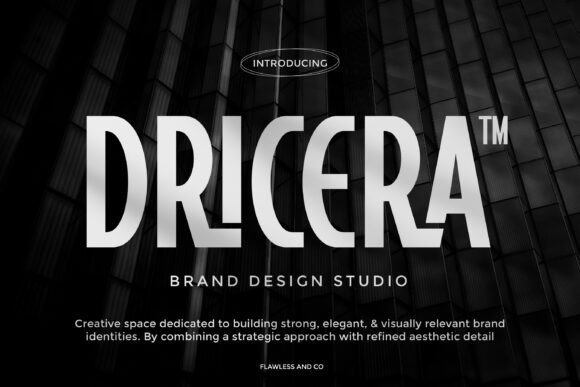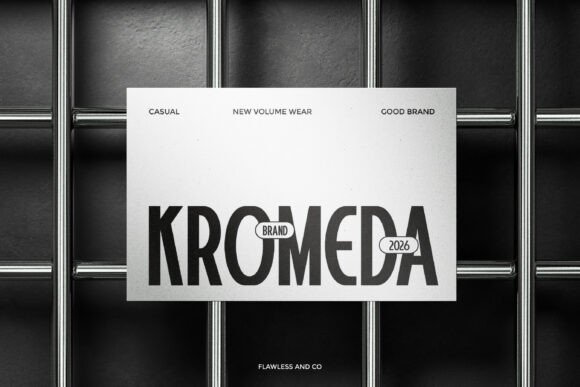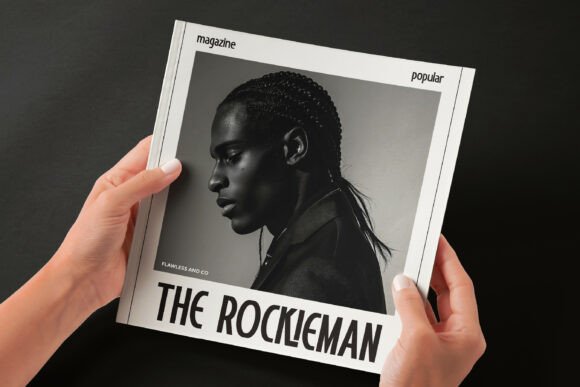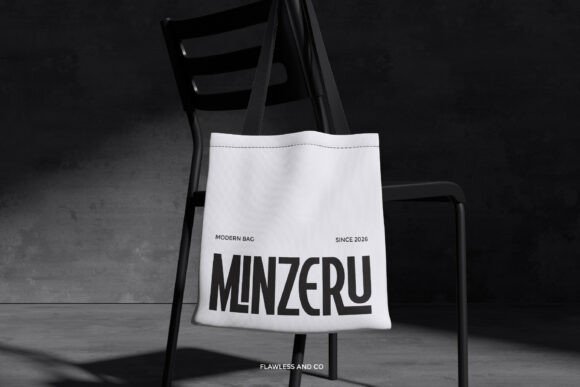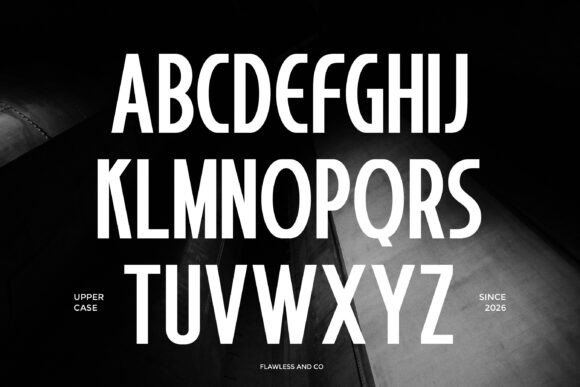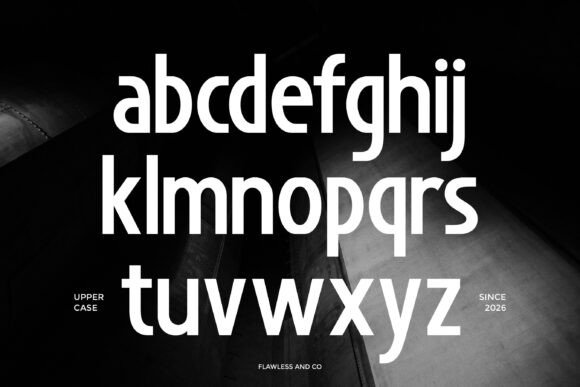
Introduction to Kranezi Font
As a designer, you’ve probably experienced that moment of creative euphoria when everything comes together – colors, typography, and composition – and you know you’ve created something special. But, have you ever struggled to find the perfect font to elevate your design to the next level? For many designers, this is a daily challenge, and the right font can make all the difference between a mediocre and a stunning design.
Enter the Kranezi Font, a modern condensed sans serif font designed to deliver a clean, strong, and space-efficient typographic style that’s perfect for any creative project. With its tall letterforms, sleek lines, and balanced proportions, Kranezi creates a modern and professional logo appearance that stands out in both digital and print designs. Whether you’re working on a logo, brochure, or website, Kranezi Font is a valuable design resource that can help you achieve high-quality results.
Key Features of Kranezi Font
- High-quality font suitable for creative projects, offering a unique and modern design style.
- Includes a comprehensive character set, including uppercase and lowercase letters, numbers, and special characters.
- Perfect for designers working on creative projects, such as branding, advertising, and editorial content.
Honest Review: Kranezi Font
As a designer, I’m always on the lookout for high-quality design resources that can elevate my creative projects. The Kranezi Font has caught my attention with its unique style and versatility.
- ✨ Unique and stylish design that can add a creative touch to any project
- ✨ High quality and crisp font that works well for both digital and print projects
- ⚠️ Limited font styles and weights available, which may limit its use in certain projects
Overall, I’m impressed with the Kranezi Font’s unique design and high quality. While it may have some limitations, it’s still a great resource for designers looking for a creative and stylish font. I’d definitely recommend it for designers working on free download projects, especially those with transparent background requirements.
Introduction to Kranezi Font
The Kranezi Font is a high-quality design resource ideal for creative projects that require a unique and stylish touch. This font features a transparent background, making it easy to overlay on various backgrounds.
Tips for Getting the Most Out of Kranezi Font
For the best results, experiment with different font sizes, colors, and combinations to create a unique look. You can also use the Kranezi Font in conjunction with other design elements to create a cohesive and visually appealing design.
The Kranezi Font is suitable for various creative projects, including branding, advertising, and editorial content. Its unique style and high-quality design make it an excellent choice for designers and non-designers alike.